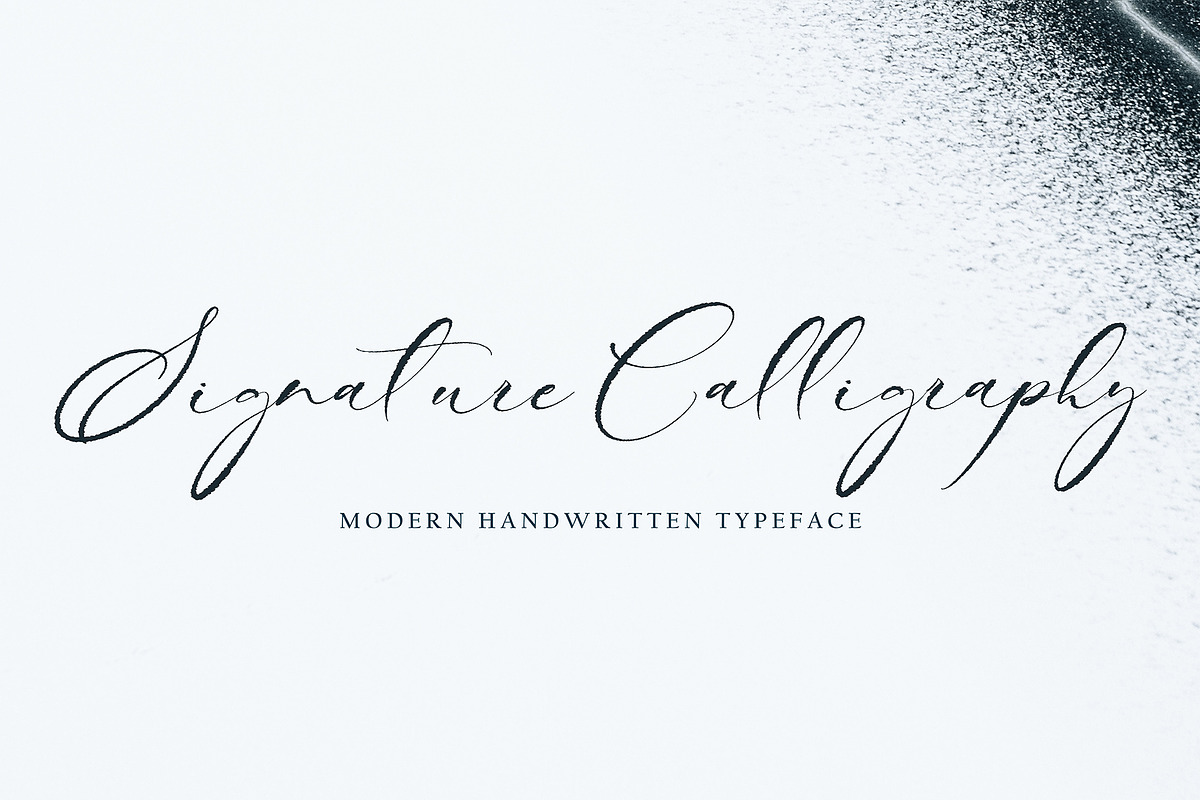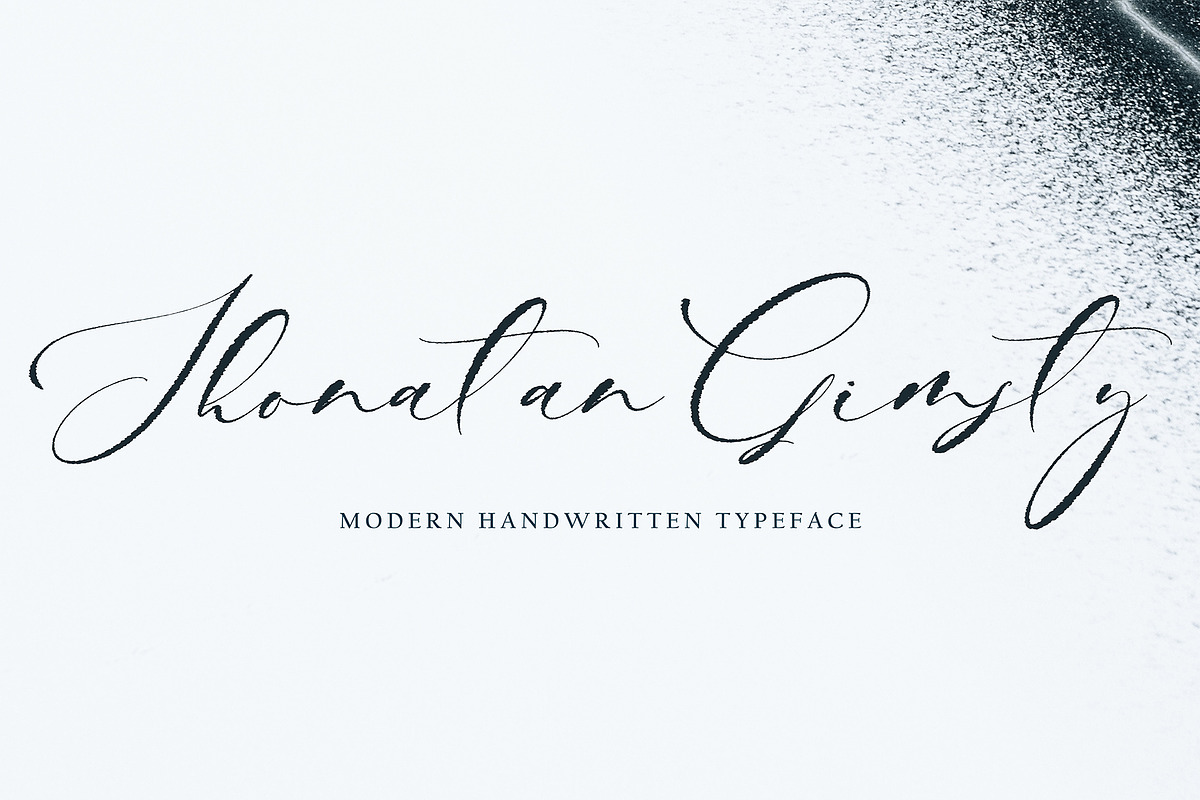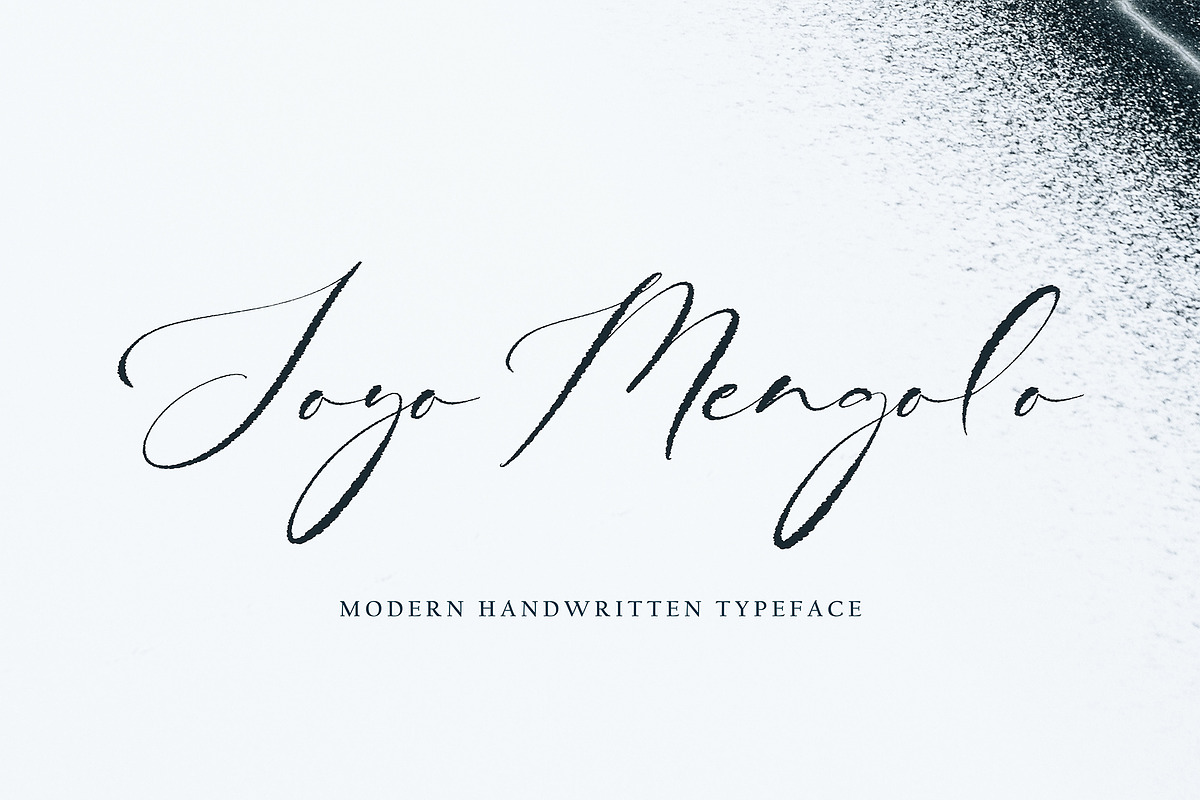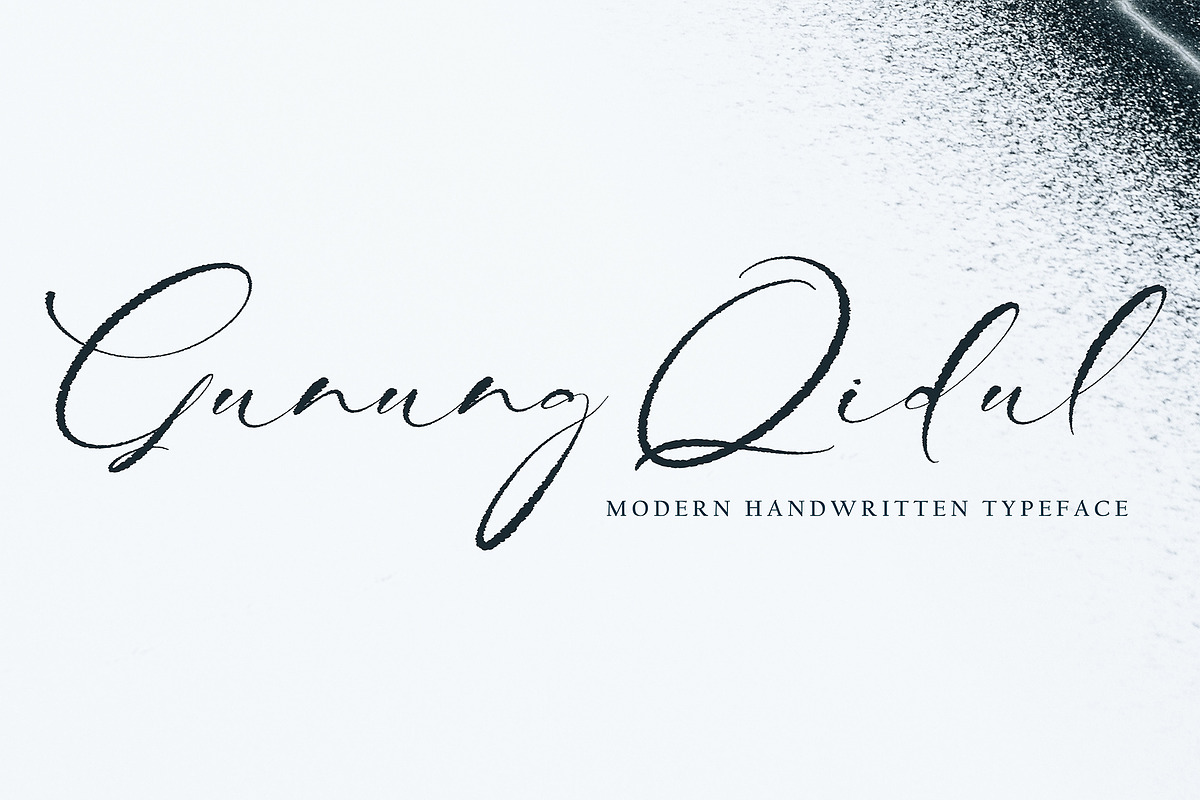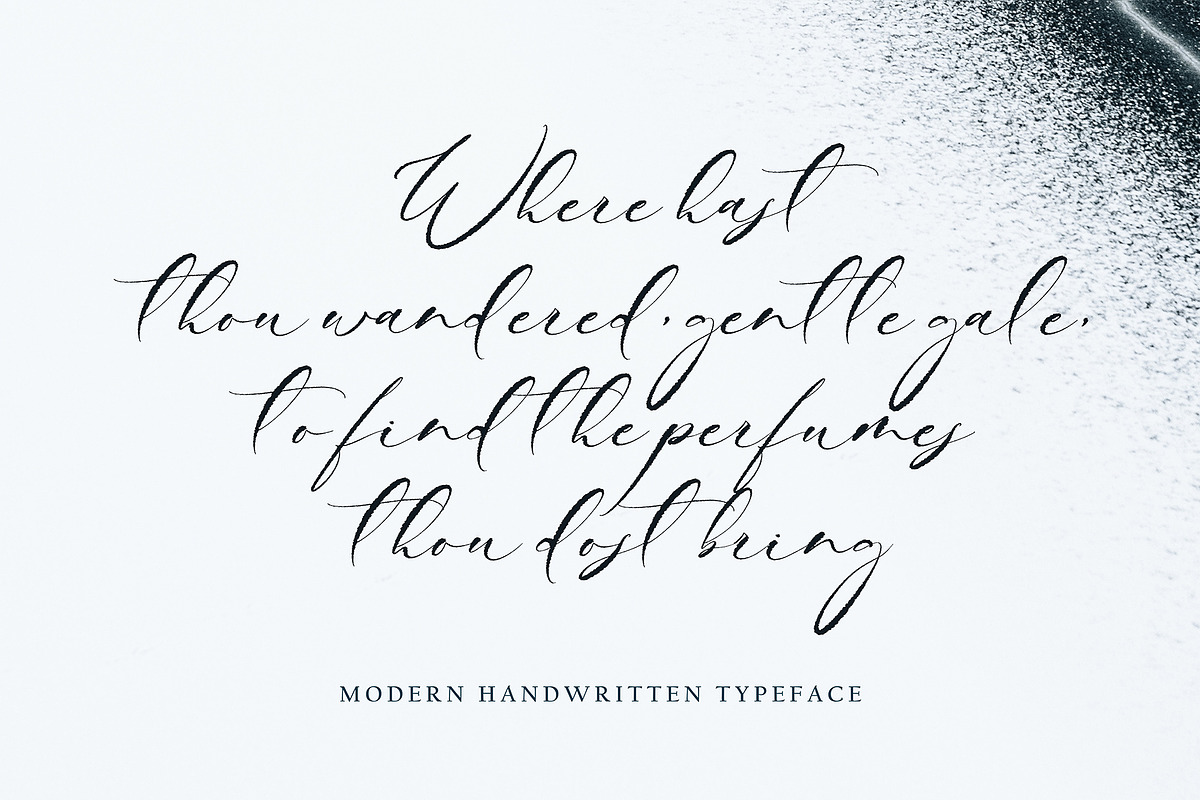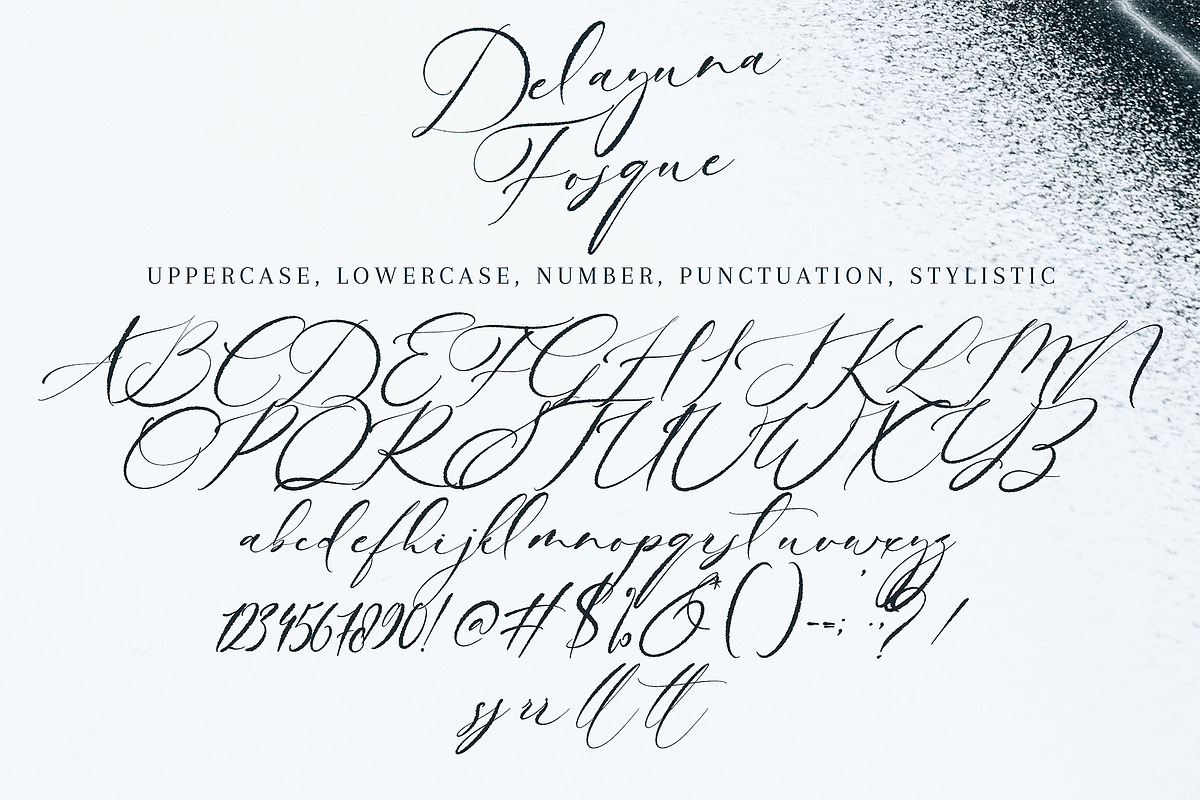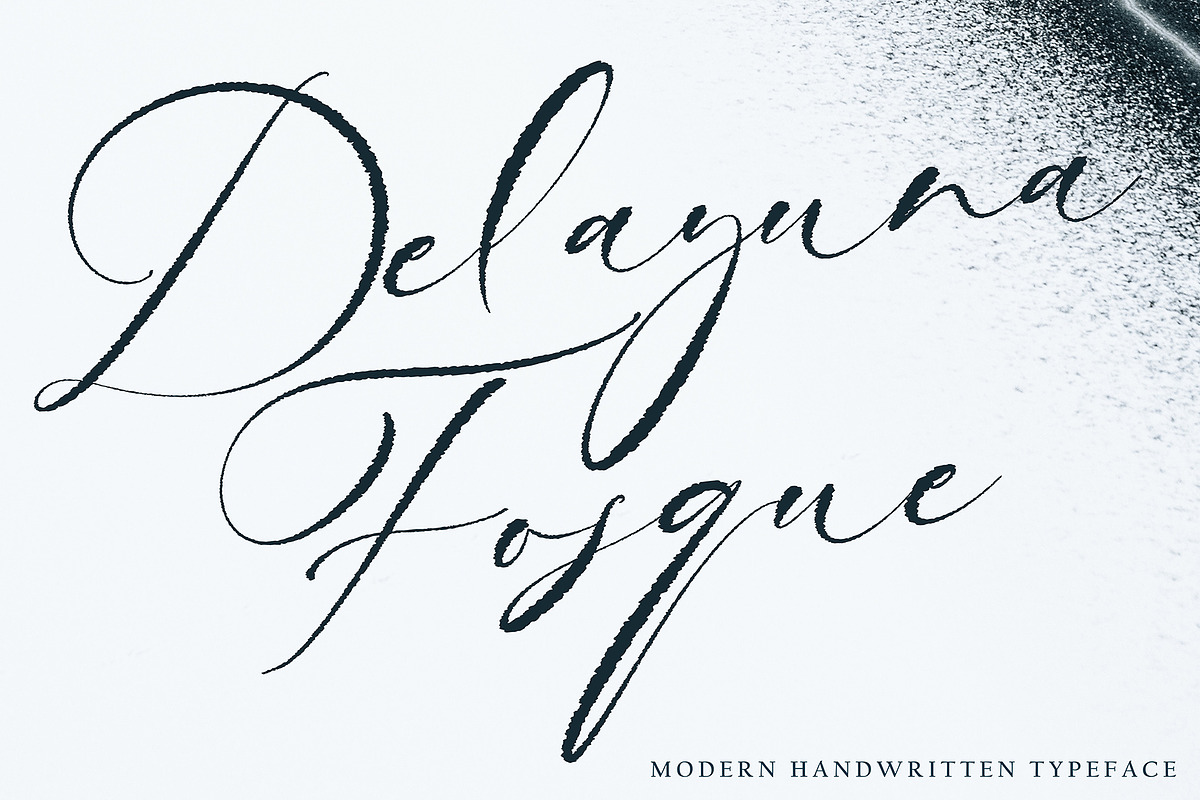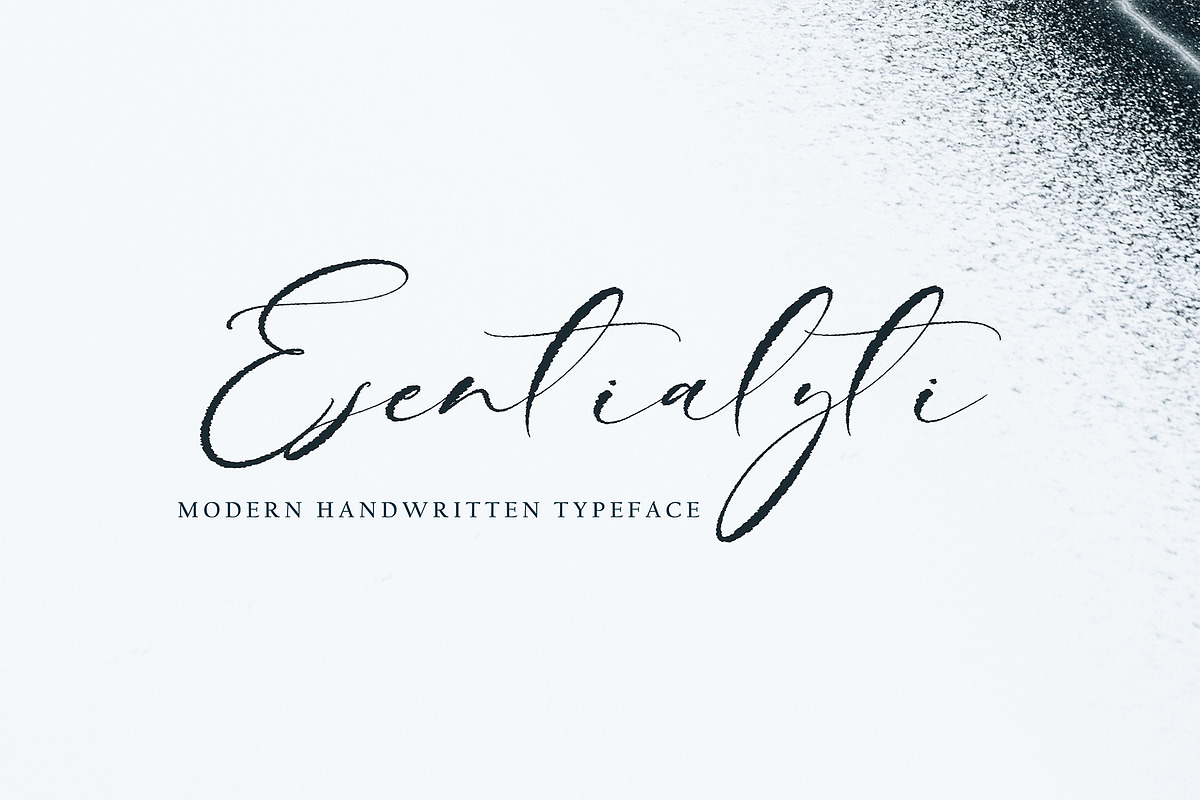
Delayuna Fosque
Delayuna Fosque with new style, this font will perfect for many different project ex: quotes, logo, blog header, poster, banding, letter, invitation, stationery, etc...